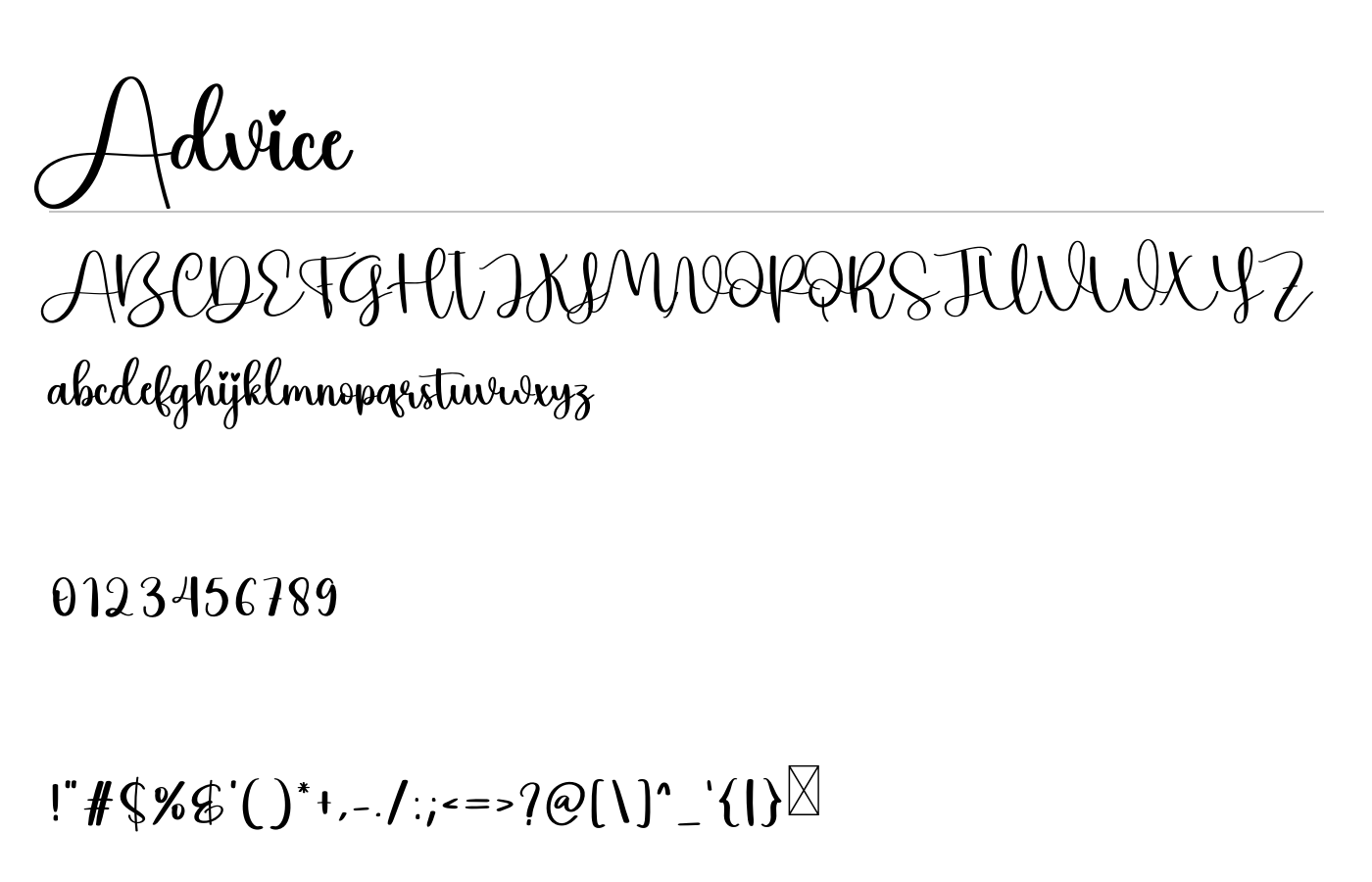
Advice Font is a playful and elegant script typeface with a delicate, hand-drawn feel. Its whimsical loops and fluid strokes make it perfect for creative projects that seek a personal, charming touch, such as invitations, branding, or decorative headlines. This font brings warmth and friendliness while maintaining readability and style.
Advice Font
About Advice Font